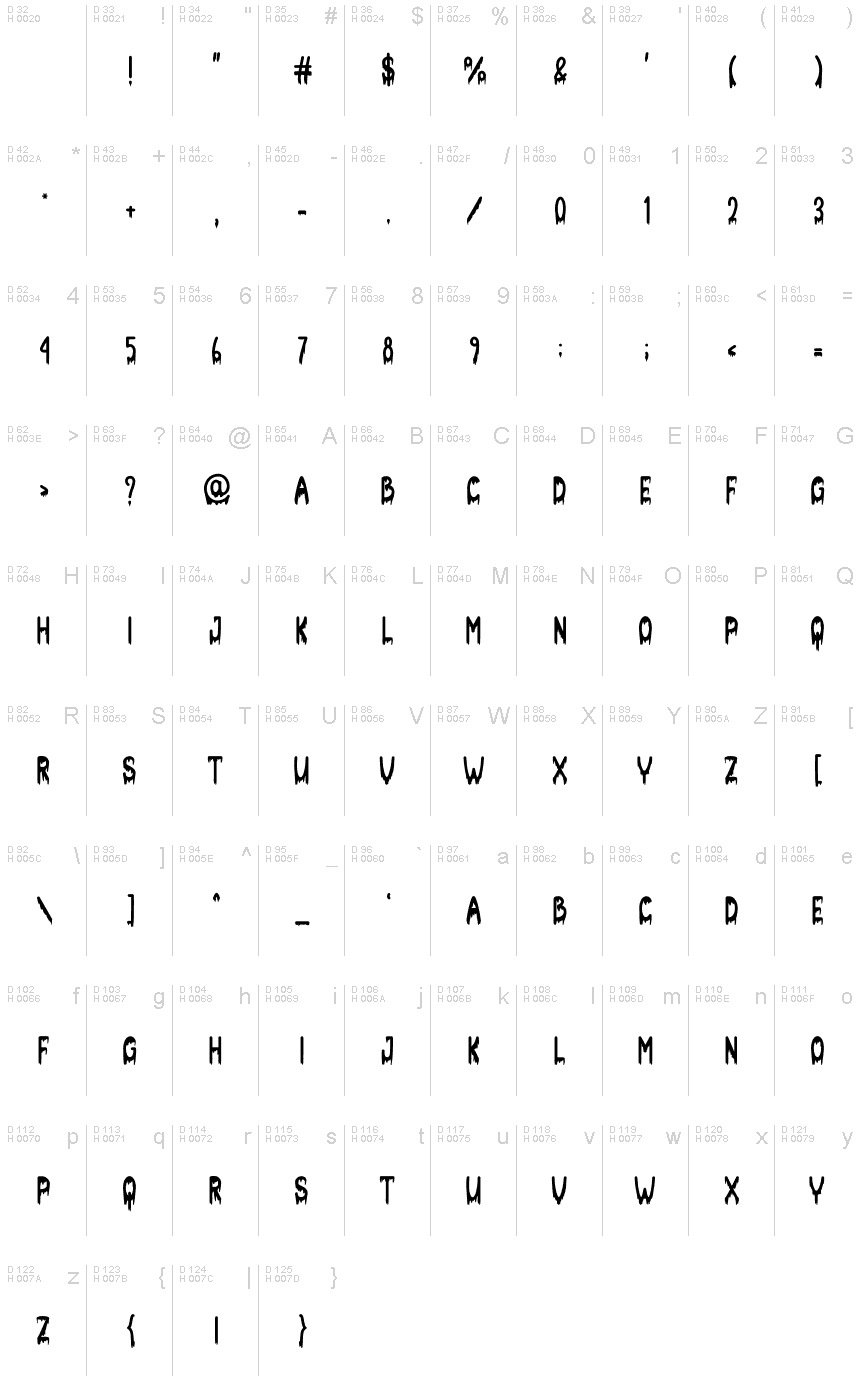
Fright Night
Fright Night, a chilling display font by Scratchones, is perfect for adding a spooky touch to your projects.
With its scary style and condensed width, this font is an ideal choice for Halloween-themed designs that need to evoke a sense of fear and suspense. The blood dripping details add an extra level of horror, making it suitable for haunted house flyers, horror movie posters, or even Halloween party invitations.
Let Fright Night send shivers down your audience's spines with its bone-chilling presence.
With its scary style and condensed width, this font is an ideal choice for Halloween-themed designs that need to evoke a sense of fear and suspense. The blood dripping details add an extra level of horror, making it suitable for haunted house flyers, horror movie posters, or even Halloween party invitations.
Let Fright Night send shivers down your audience's spines with its bone-chilling presence.